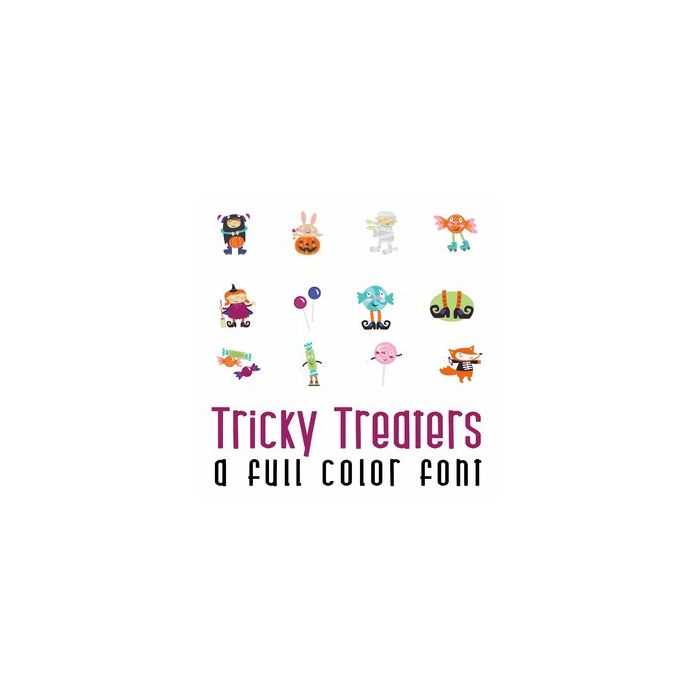
This adorable full-color doodlebat font features 32 adorable halloween characters and candy. Perfect for cards, crafts, gifts, decor, scrapbook pages, planner stickers, and more! Glyphs are A-Z and 0-5